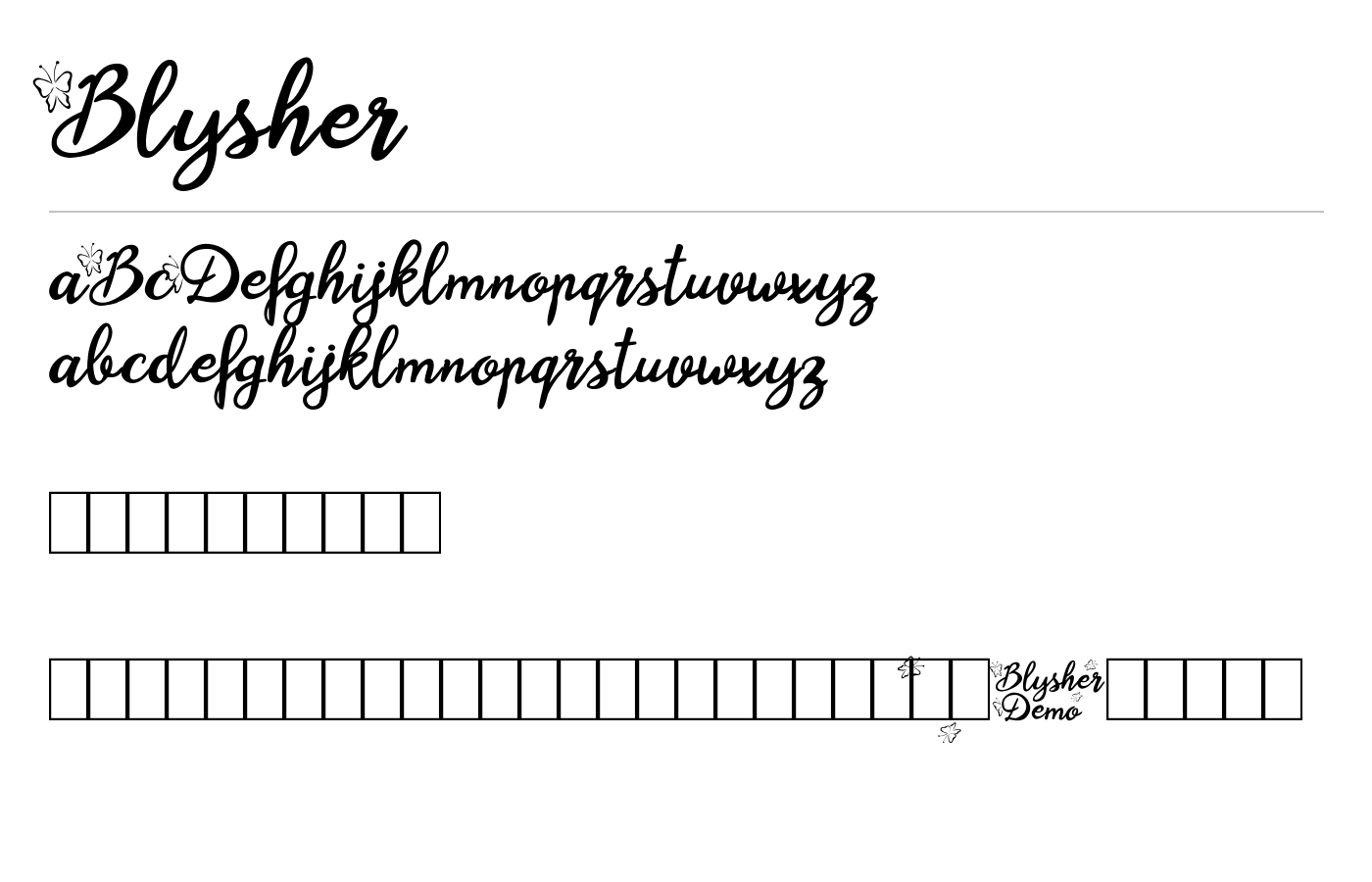
Blysher is an elegant script font with a smooth, flowing style that combines a casual handwritten feel with refined sophistication. It features medium weight and moderate contrast, with graceful curves and natural letter connections that make it perfect for feminine branding, invitations, and stylish logos. Its playful yet polished personality adds warmth and charm to designs needing a personal touch with a touch of elegance.
Blysher Font